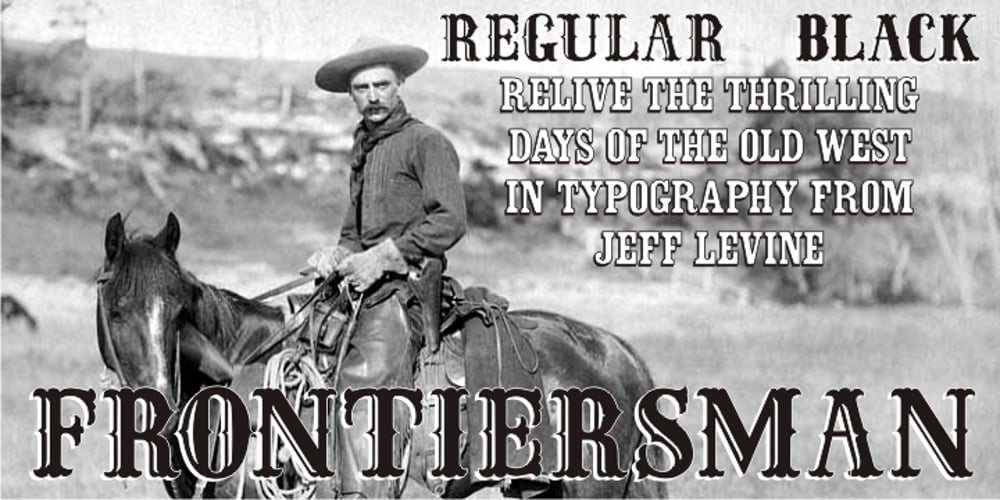
Frontiersman JNL Font Family was designed by Jeff Levine and published by Jeff Levine. Frontiersman JNL contains 2 styles and family package options. The pages of the Speedball® Lettering Textbook have yielded a number of classic typefaces for digital designers. Frontiersman JNL and Frontiersman Black JNL have the wonderful hand-lettered look that adds just the right touch of nostalgia to any layout.